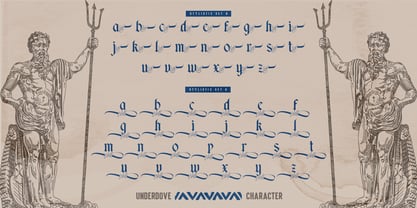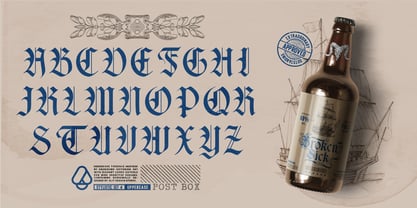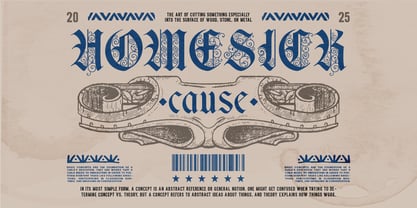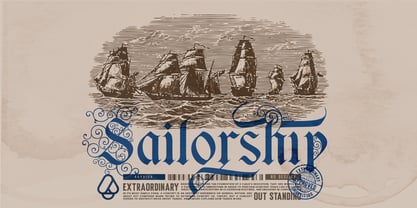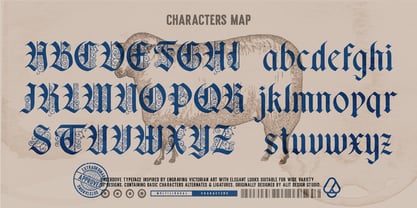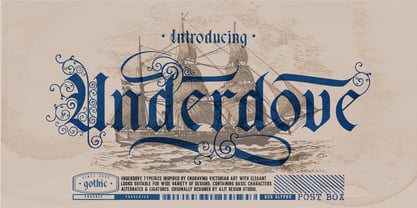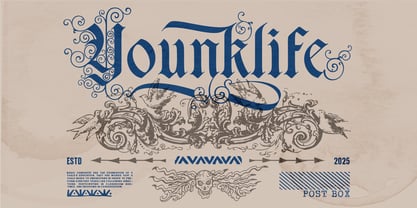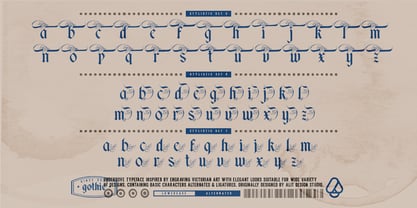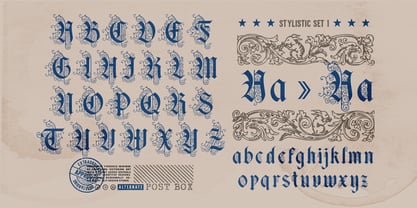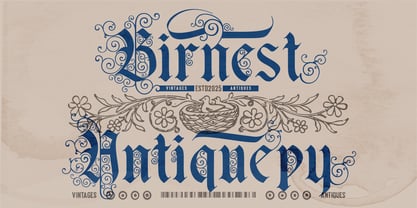
Underdove
by Alit Design
The Underdove Font Family was designed by Alit Suarnegara and published by Alit Design. Underdove contains 1 styles. More about this family
Underdove Typeface – A Gothic Tribute to Elegance and Authority
Introducing Underdove Typeface, a meticulously designed blackletter font that draws its soul from the Victorian era’s ornamental engravings and the enduring sophistication of classical calligraphy. Each character in Underdove is shaped with intention — combining bold Gothic structure with flourished elegance — making it a powerful choice for branding, editorial designs, packaging, posters, and other high-impact visual compositions.
Crafted by Alit Design Studio, Underdove is a celebration of detail and historical beauty, fused with the flexibility modern creatives demand.
🔹 Design Inspiration
Underdove is more than a typeface — it’s a visual narrative. It evokes the craftsmanship of 19th-century woodcuts and maritime documents, echoing the artistry found in old nautical maps, heraldic documents, and vintage engravings. The name Underdove conjures a sense of mystery, resilience, and nobility — qualities reflected in each glyph.
🔹 Font Aesthetics
Underdove boasts a strong, classic blackletter structure infused with:
• Intricate flourishes and ornamental swashes that lend a majestic, ceremonial quality
• Sharp, angular terminals balanced with soft, curling embellishments
• A subtle texture that mimics hand-engraving, perfect for vintage or steampunk-inspired projects
This combination of grit and grace makes it ideal for logos, book covers, spirits & wine labels, historical themes, tattoo-style art, and high-end editorial layouts.
🔹 Font Features
• 820 total glyphs – Offering incredible variety and stylistic control
• Stylistic Alternates – Multiple versions of many letters to match any mood or context
• Elegant Swashes – Add flourished tails or extended strokes for custom compositions
• Creative Ligatures – Hand-designed letter pairs and trios for seamless flow
🔹 Perfect For:
• Luxury branding and identity
• Historical or fantasy-themed projects
• Gothic, medieval, or vintage aesthetics
• Event posters and album artwork
• Packaging for wines, perfumes, and artisan goods
• Decorative headlines, signage, and tattoo design
Whether you're crafting an epic title, a regal brand, or a detailed vintage piece, Underdove Typeface offers the expressive versatility and classical grandeur to bring your vision to life.